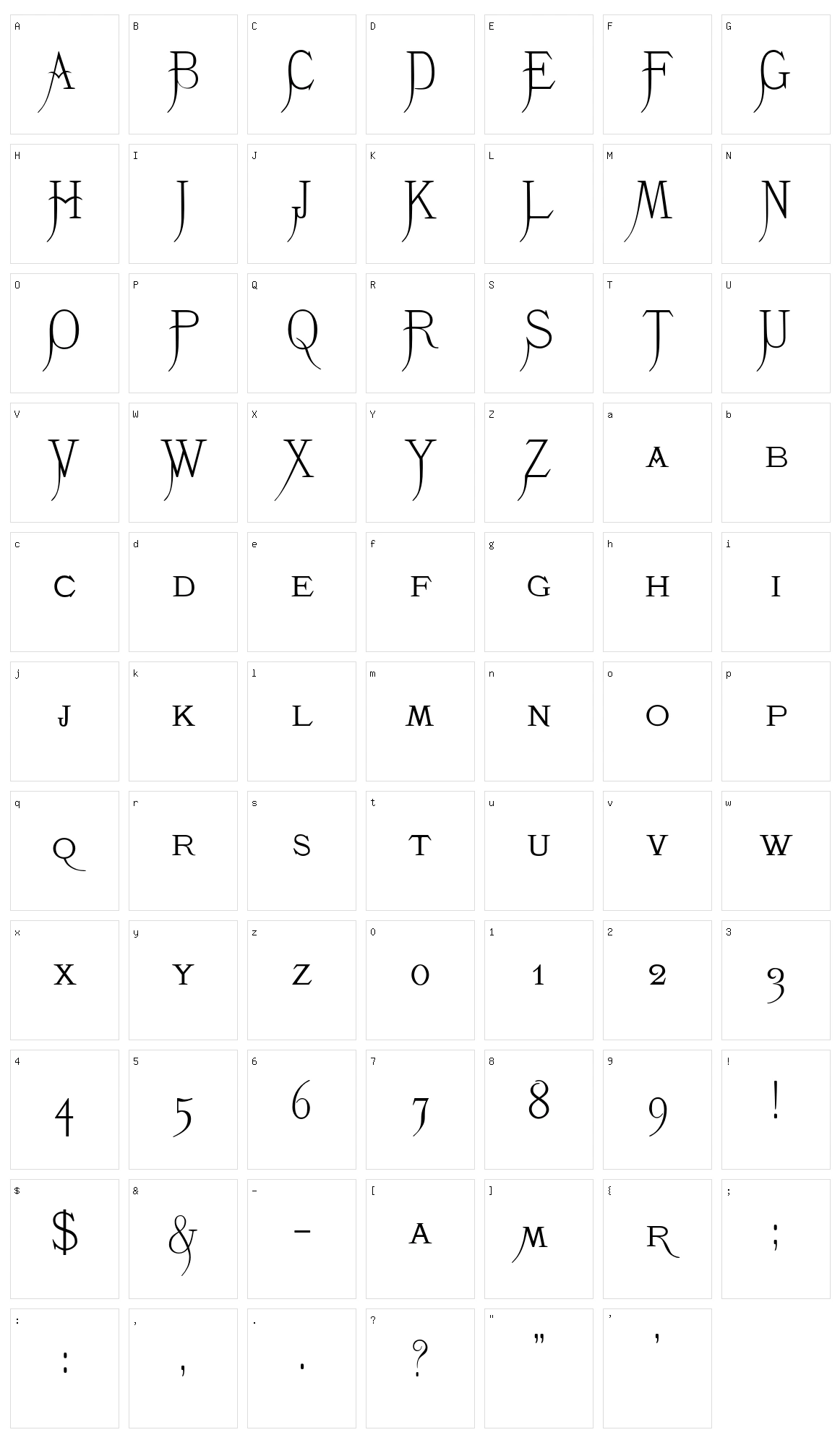
K22 Monastic is based on Monastic from the Victorian Display Alphabets by
Dan X. Solo (Dover Publications), scanned and posted by Poukha in
alt.binaries.fonts on March 17, 2010.
The Monastic specimen sheet from Victorian Display Alphabets only contains
alphabets. Claude posted an image of the numerals and several cyrillic
characters in alt.binaries.fonts on March 19, 2010. Severak numerals were
also taken from the McKellar, Smiths & Jordan 1892 specimen book.
The font only contains characters that are on the Poukha scan and Claude's
images. I did not create any characters from scratch.